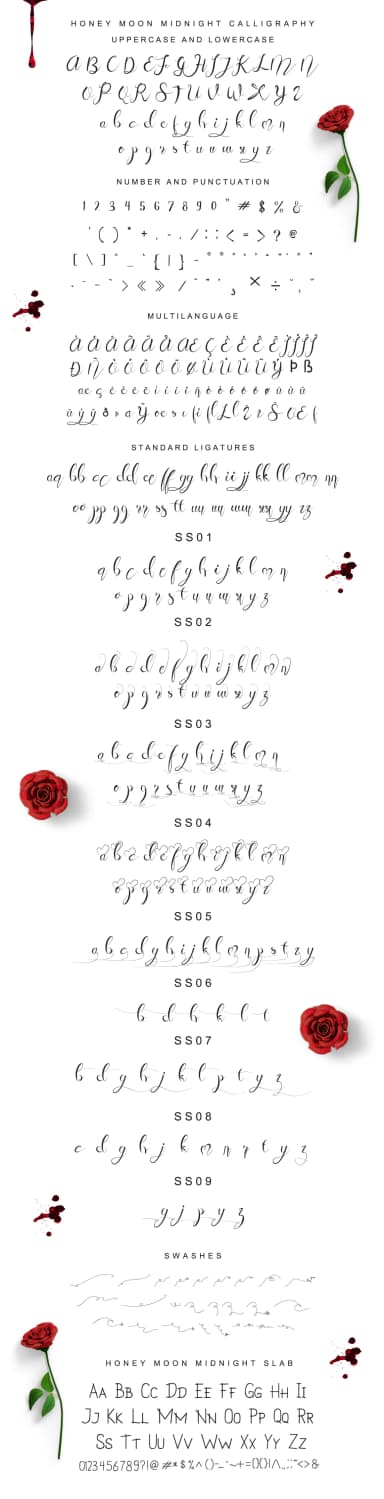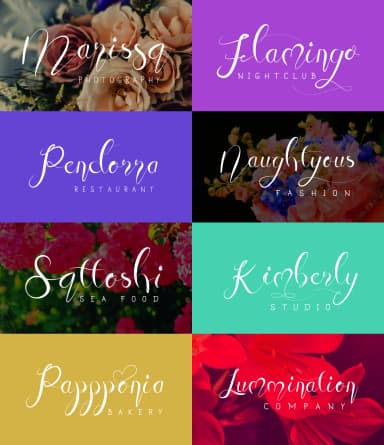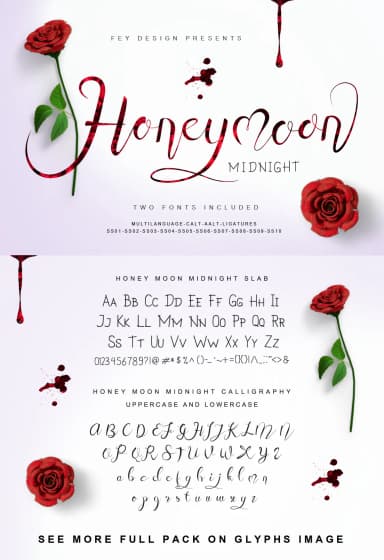
Honey Moon Midnight by feydesign is a hand-lettered script font that combines flowing elegance with contemporary charm. The typeface delivers genuine script character while maintaining clean, professional execution across both print and digital mediums. Its distinctive letterforms bring warmth and personality to any project requiring authentic calligraphic appeal. This font shines for wedding invitation suites and personalized greeting card designs where graceful letterforms convey romance and refinement. It's equally effective for boutique brand packaging, small business logo development, product labels for artisan goods, and DIY event signage where distinctive character makes the difference. The comprehensive stylistic variants, including a complementary slab version and extensive alternate glyphs, give designers genuine flexibility to customize projects without purchasing additional fonts. Whether crafting social media graphics for creative entrepreneurs or designing poster layouts, Honey Moon Midnight adapts seamlessly across applications. The extensive alternate characters maintain authentic hand-lettered quality while preserving professional typographic standards. Its contemporary script aesthetic functions equally well for book cover designs and packaging applications as for digital branding projects. These stylistic variations deliver genuine design control, allowing you to match handwriting nuance with professional precision. Get Honey Moon Midnight on Creative Fabrica and discover how this hand-lettered script transforms your creative work.
Honey Moon Midnight Font is a script font that shines as a display or heading face. Pair it with a clean sans-serif or serif font for body text β the contrast creates a clear hierarchy while the two styles stay balanced and easy to read.
Honey Moon Midnight Font
by feydesign